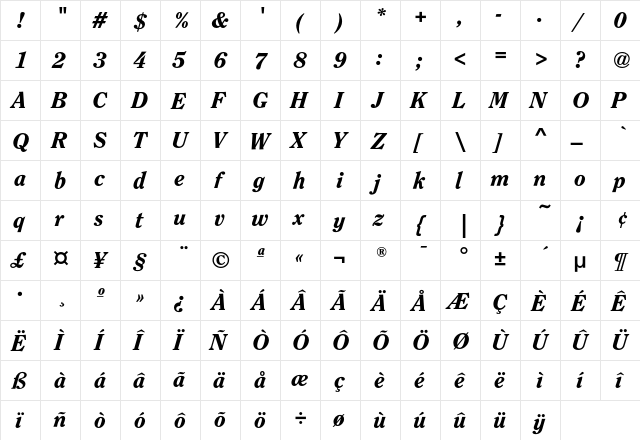
ClearfaceEF-HeavyItalic Regular Font Preview
ClearfaceEF-HeavyItalic Regular
ClearfaceEF-HeavyItalic Regular Font Details
Design Context for ClearfaceEF-HeavyItalic Typeface
ClearfaceEF-HeavyItalic offers clean, dependable letterforms without strong stylistic allegiance, making it a practical choice for designers who need flexibility. The dynamic lean of this cut emphasises speed and emphasis in any layout.
Pro Tip: Use ClearfaceEF-HeavyItalic for emphasis, pull quotes, and subheadings where its slanted energy can add rhythm to the layout.